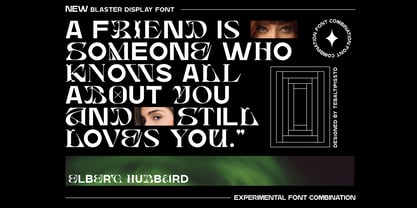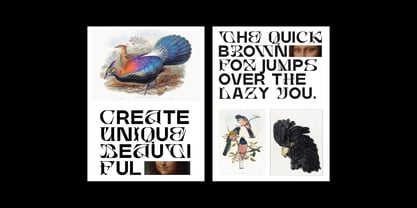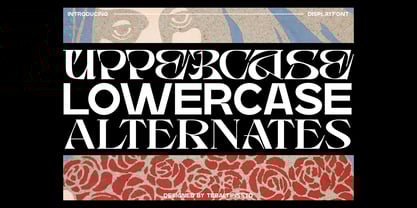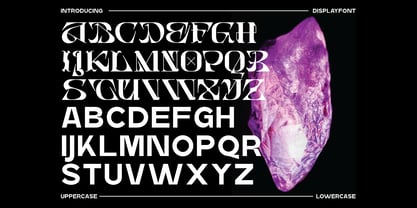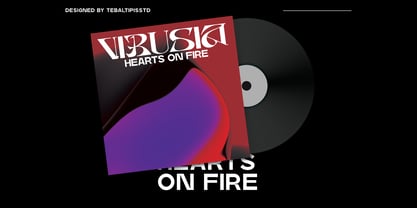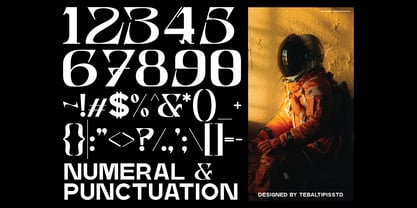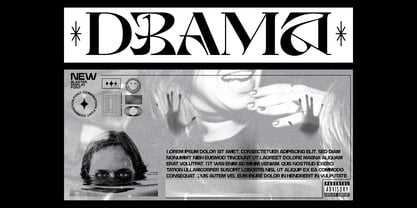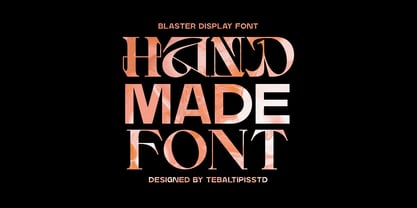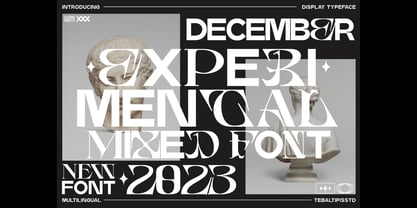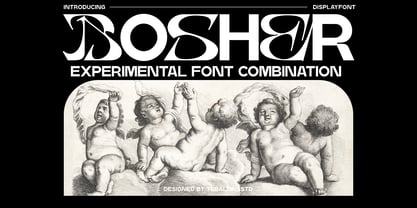
Bosher Display
The Bosher Display Font Family was designed by Dzulka Elfira and published by Tebaltipis Studio. Bosher Display contains 1 styles. More about this family
Bosher Display is an experimental combination font. include 3 fonts that have a very different style and appearance, but make this font look unique.
This font equipped with several features such as alternative characters, ligatures, and multi-language support that makes it easier for you to design. This font is perfect for your design needs such as poster design, logo design, branding, social media design, book, magazine, etc.